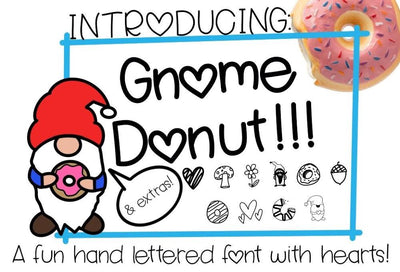
Gnome Donut - A fun handlettered font - with hearts and extras! Free SVG included
Introducing GNOME DONUT! A fun hand lettered font with hearts and extras. You will receive the BOLD, REGULAR, and 'DIET' versions of Gnome Donut in TTF format. Easy to download and install.